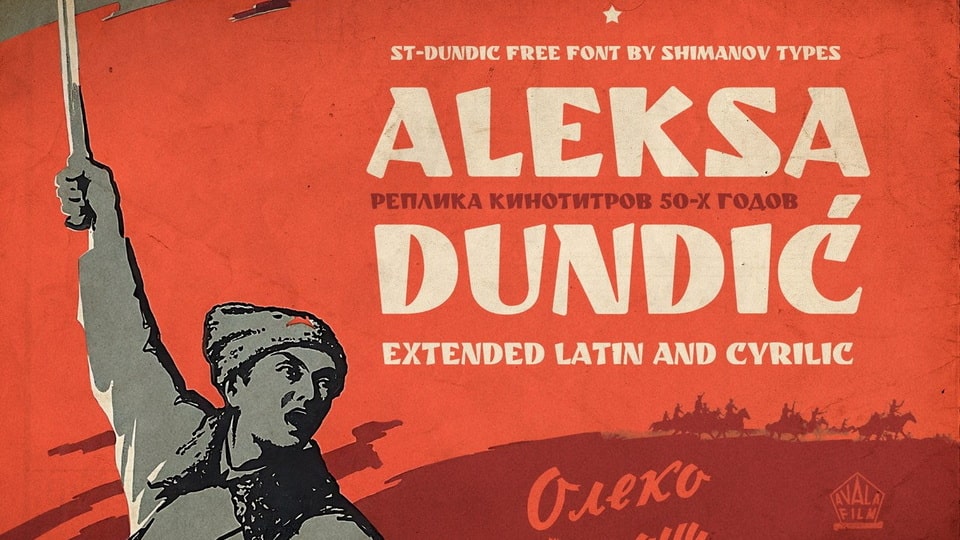
Download ST-Dundić font, a display typeface inspired by the movie credits of the 50s joint Soviet-Yugoslav film. ST-Dundić font is perfect for decorating children’s products.
Designer: Alexander Shimanov